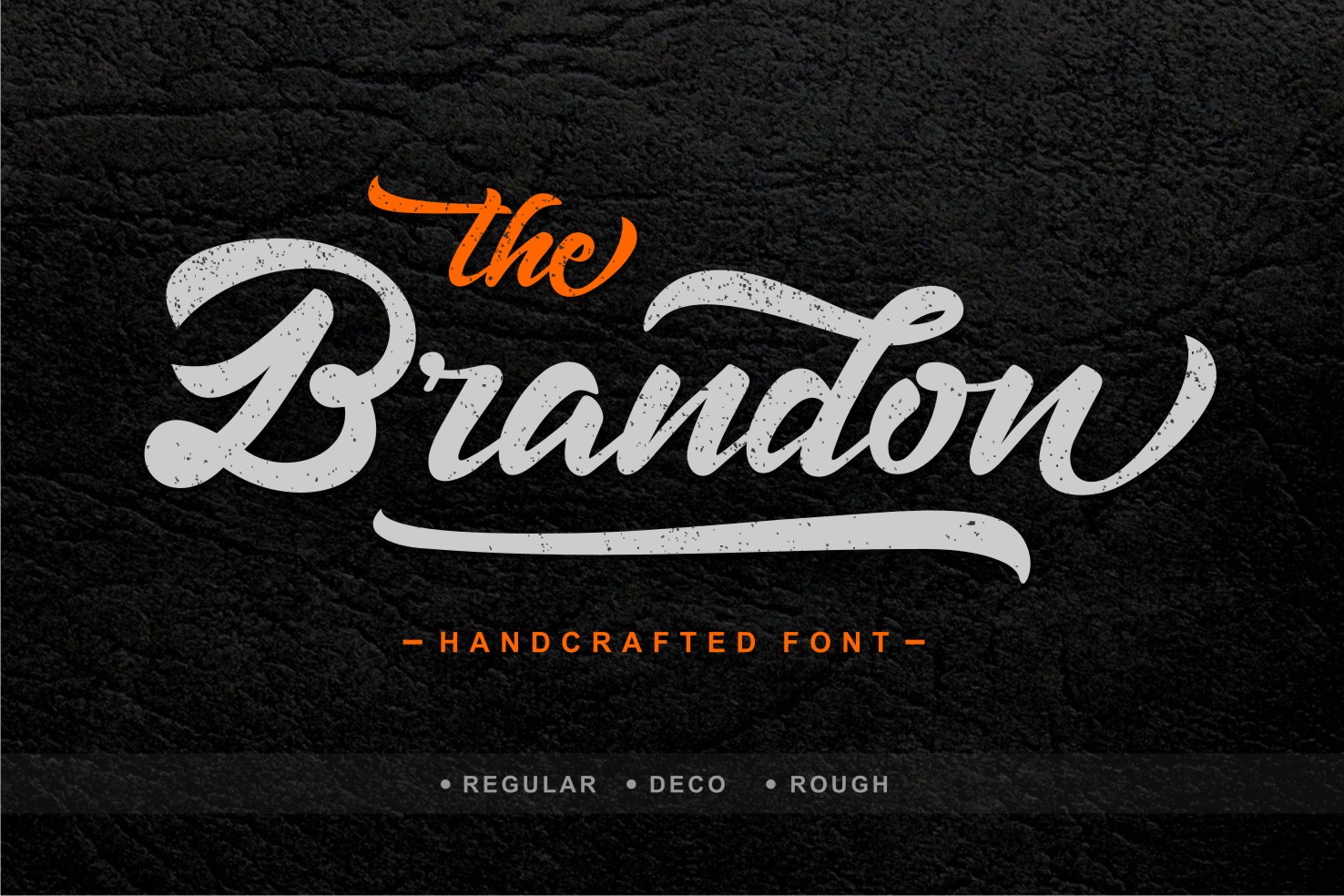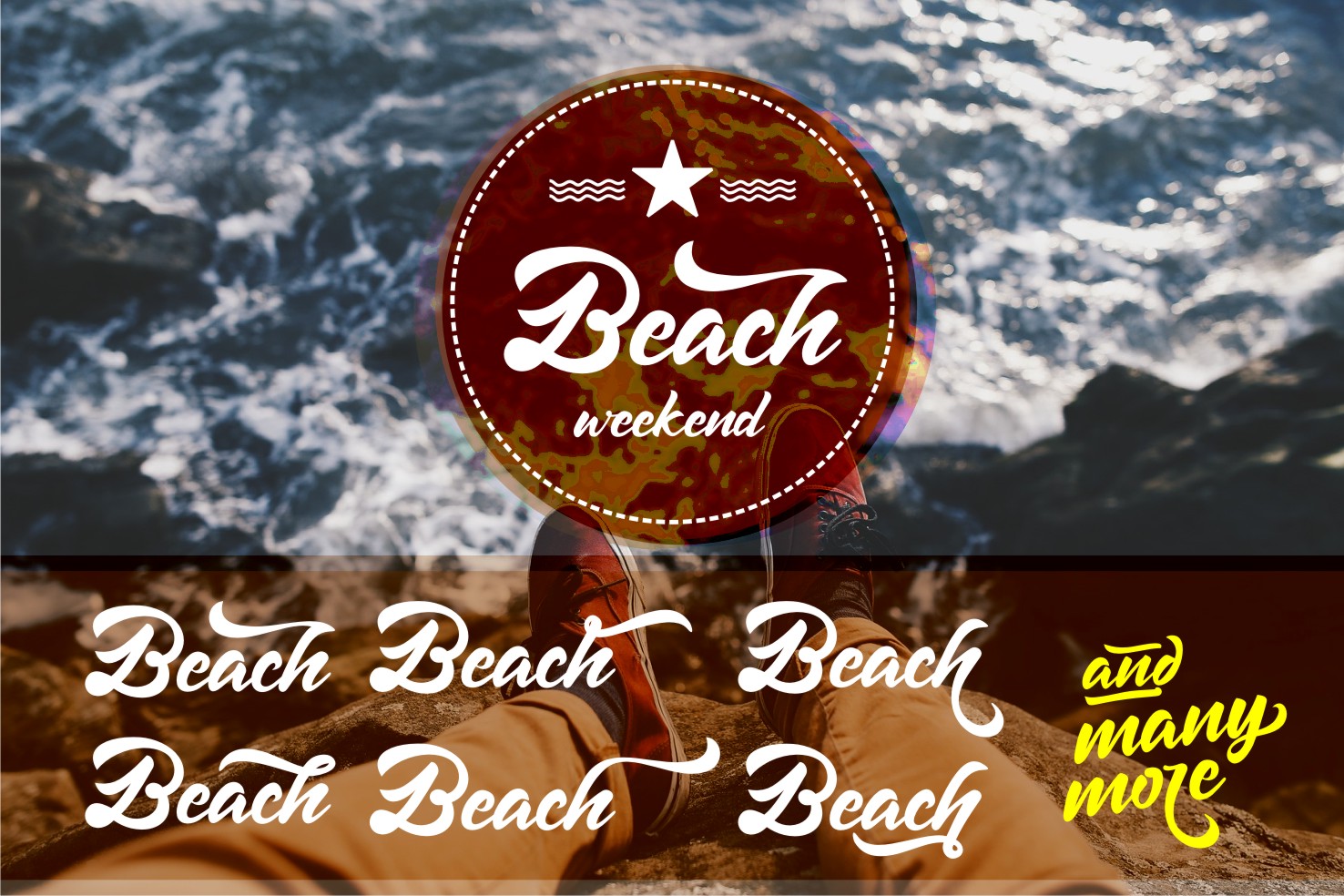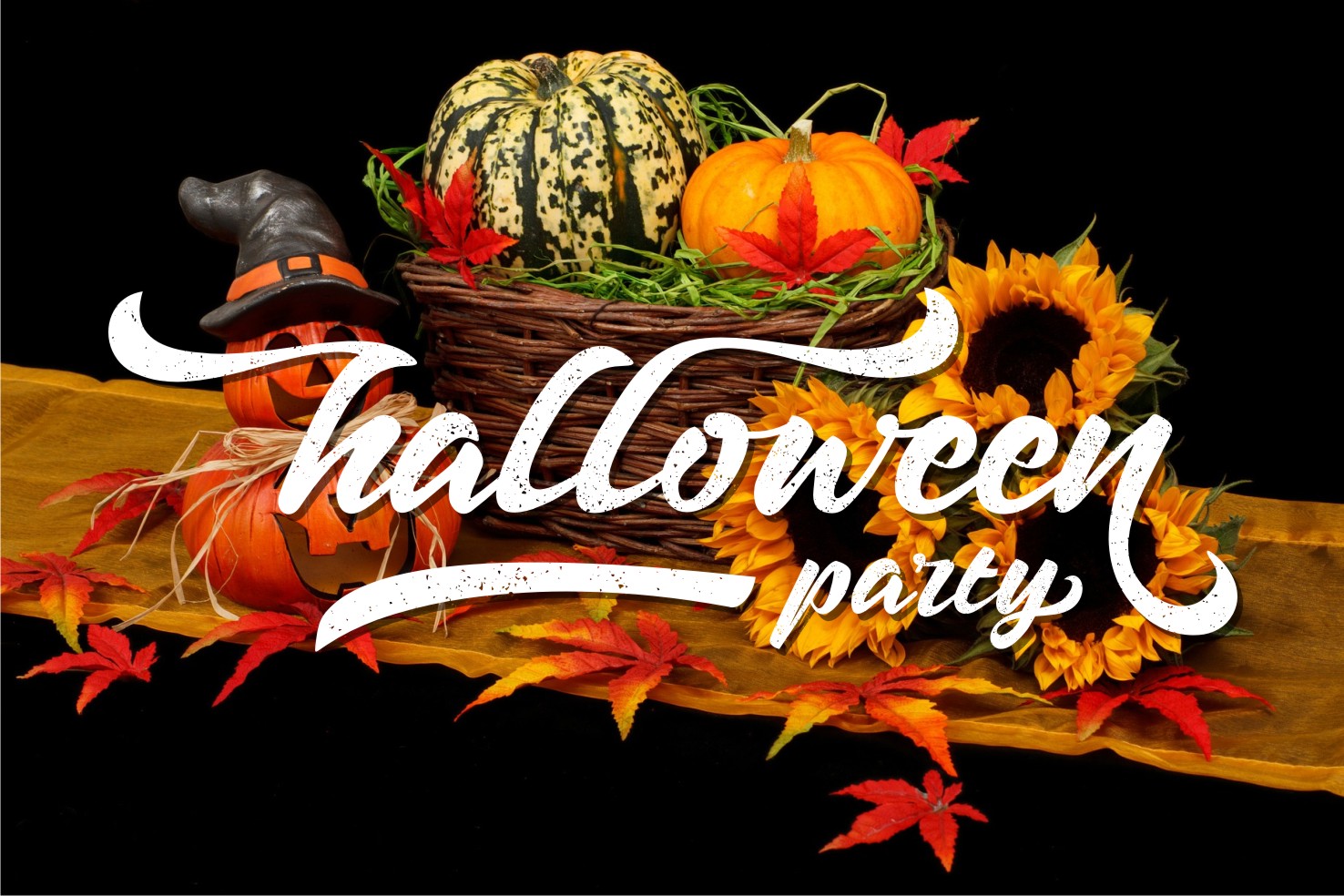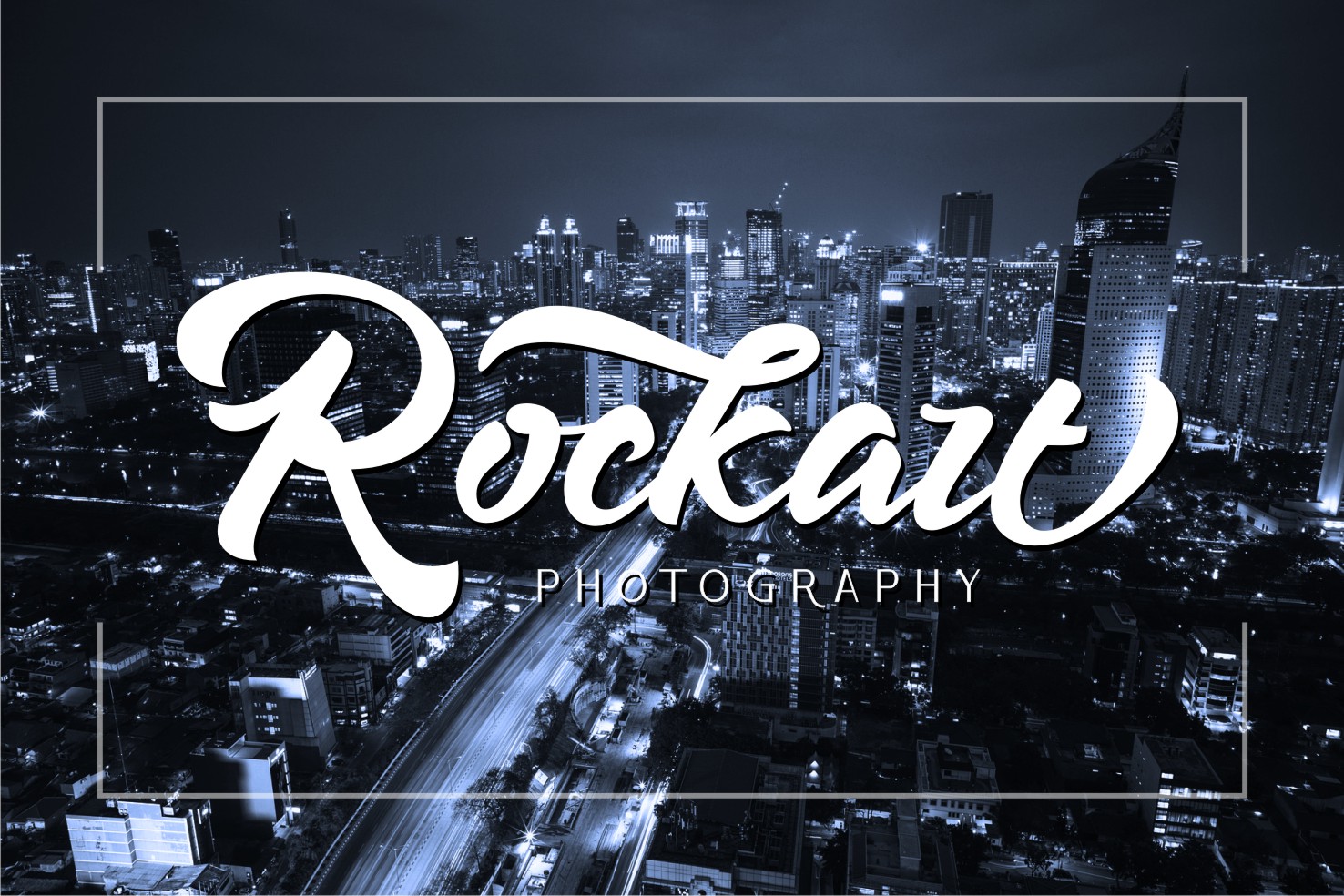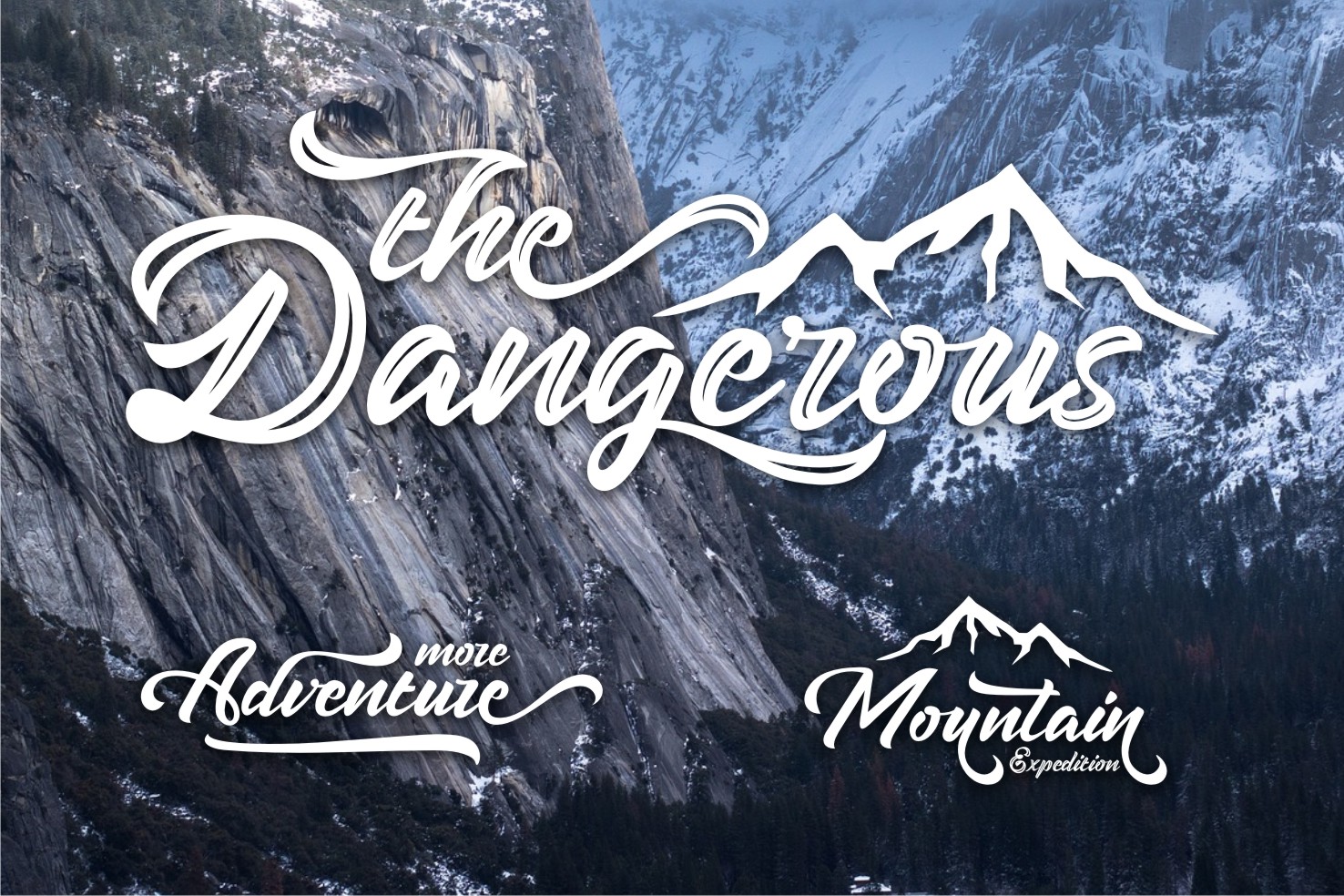
Brandon Font
About Brandon Font
Brandon is a fresh, modern brush script that is perfect for logos, letterhead, posters, apparel and much more.
Brandon comes packed with swashes and other stylistic alternates. The Brandon font comes in 3 versions: Regular, Rough, Deco.